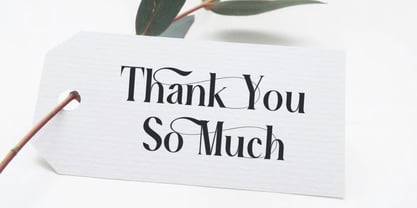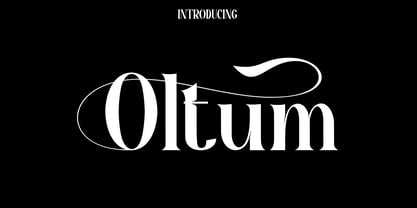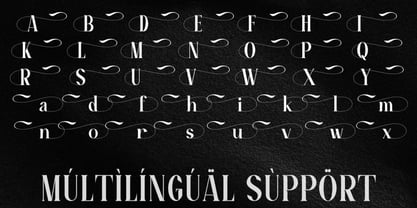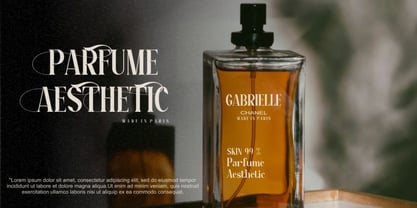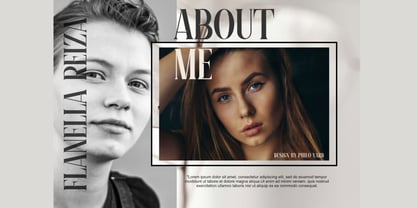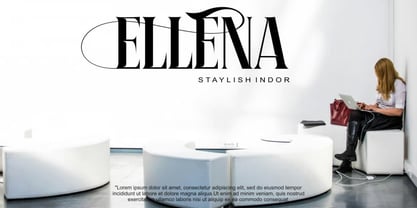
Oltum
by Hasnat Studio
Oltum is a modern and sophisticated serif typeface that embodies timeless elegance and refined design. With its graceful curves, subtle contrasts, and stylish ligatures, this font infuses luxury, harmony, and sophistication into your creative projects. Striking a perfect balance between classic serif charm and modern minimalism, Oltum is ideal for branding, fashion editorials, wedding invitations, luxury packaging, and upscale advertising. Its versatile alternates and multilingual support make it suitable for both display and editorial use, ensuring your designs always appear polished and professional. Oltum provides complete flexibility across digital and print media. From bold headlines to elegant body text, this font enhances every layout with premium quality and timeless appeal. ✦ Font Features - Uppercase & Lowercase Letters - Alternates & Ligatures for stylistic versatility - Numbers & Punctuation - Multilingual Support ✦ Perfect For - Elegant Branding & Visual Identity - Fashion & Lifestyle Logos - Editorial & Magazine Design - Wedding Invitations & Stationery - Luxury Packaging & Labels - Social Media Templates & Advertisements Bring your vision to life with Oltum — a modern serif font that exudes class, refinement, and timeless luxury, making it perfect for high-end branding and sophisticated design projects.